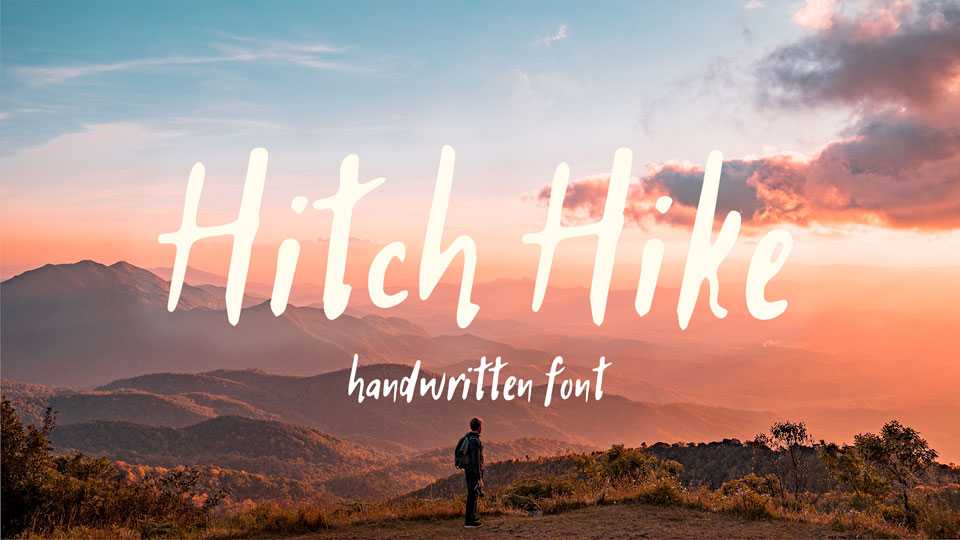
Download Hitch Hike font, a simple but eye-catching handwritten brush typeface. Great for crafts, posters, cards, social media t-shirts and other creative projects.
Designer: Ivan Gladkikh